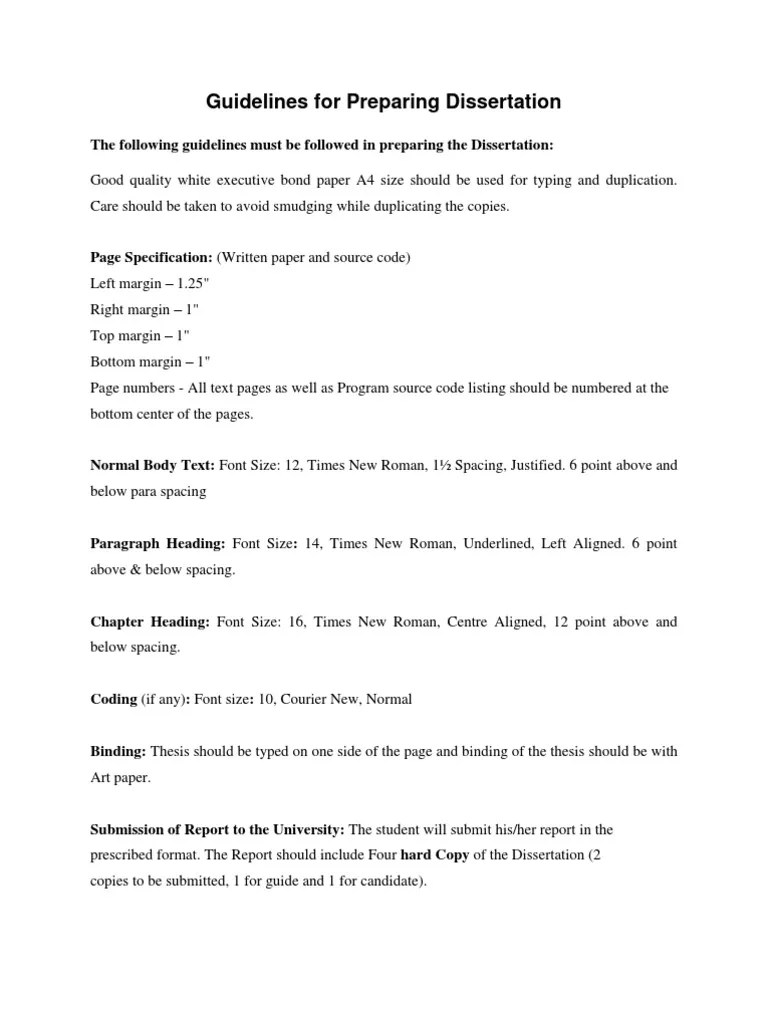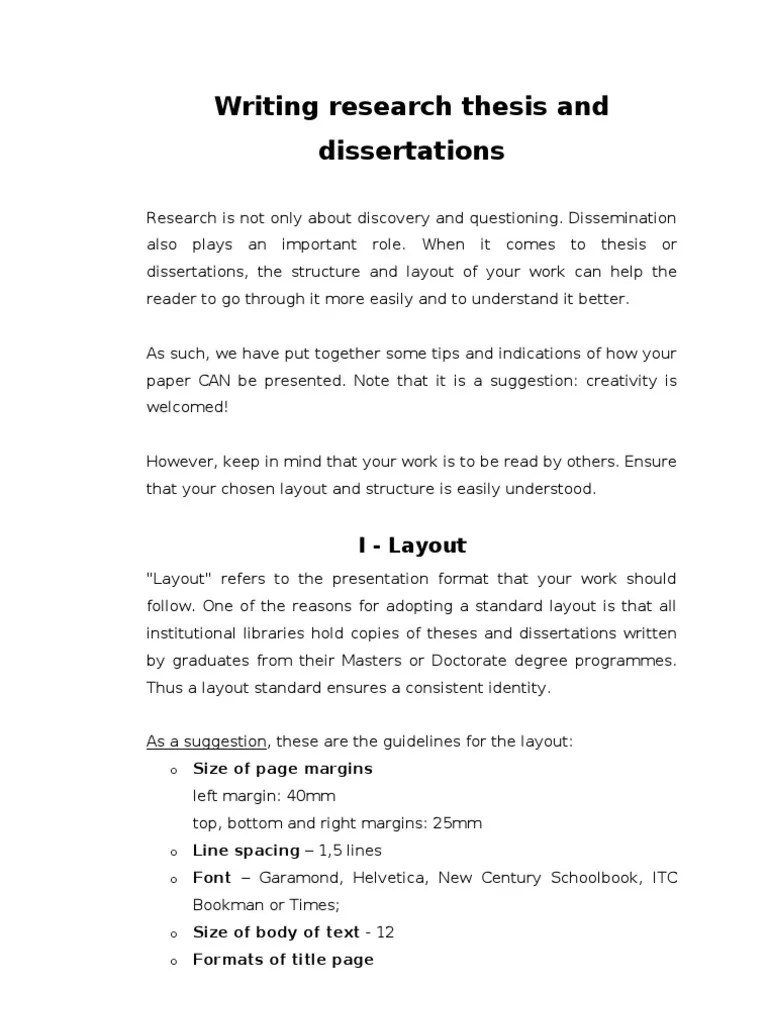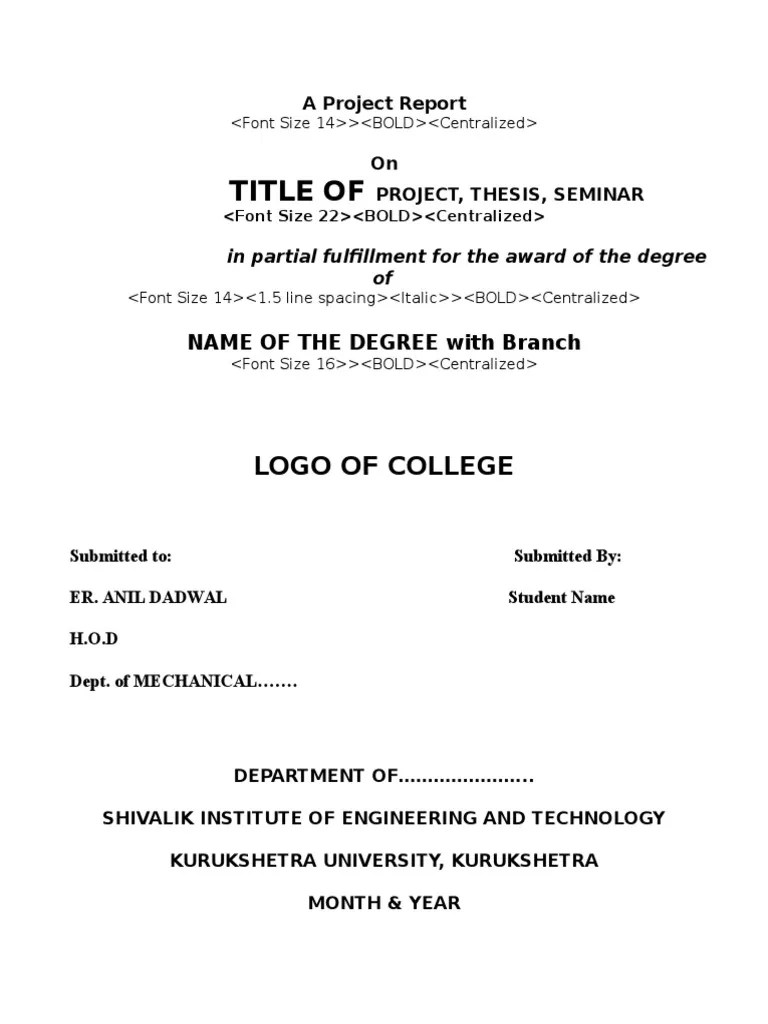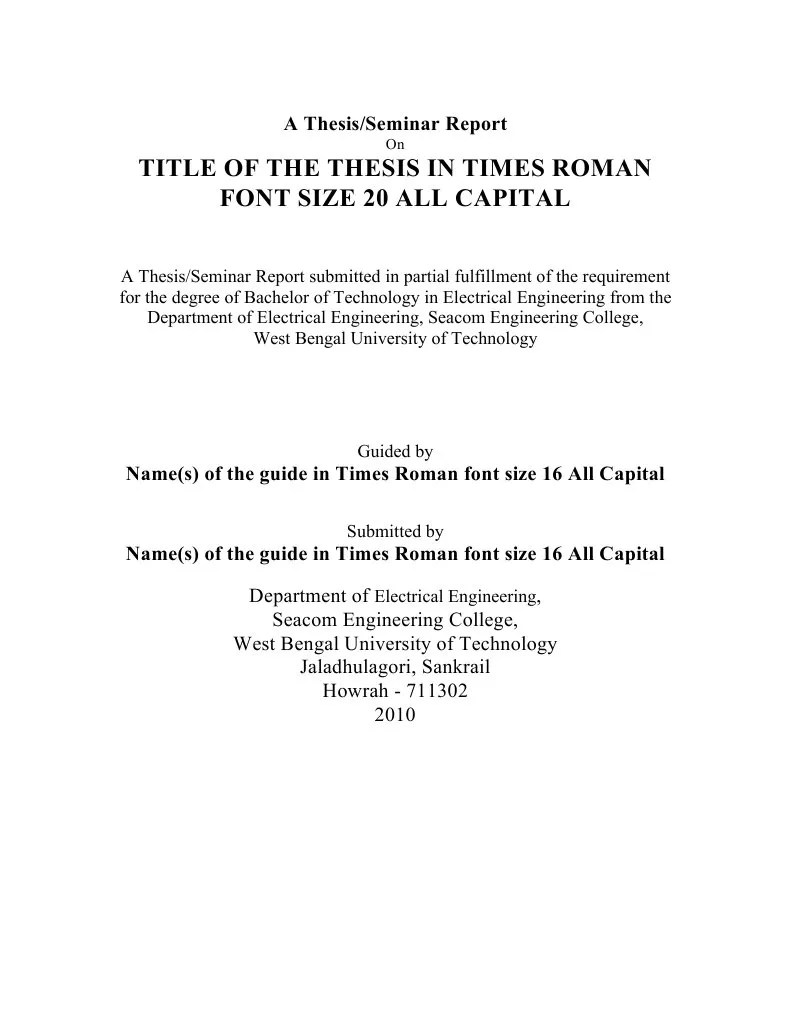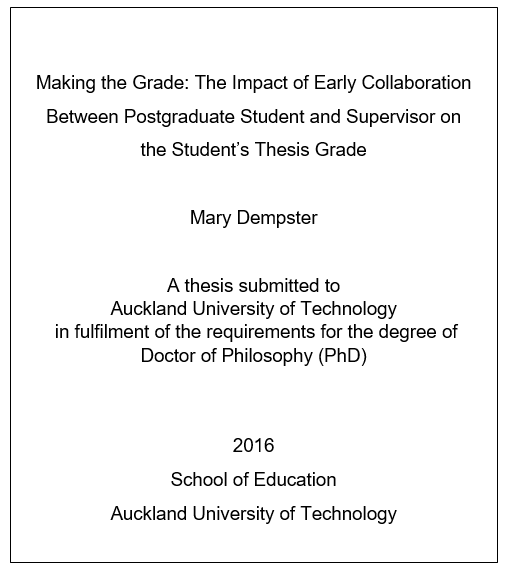
Standard Font Size For Thesis . 4cm for dissertations and theses, 2.5cm for other document types; The same font type and size should be used for the entire thesis (with possible. Fonts must be embedded in the pdf file to ensure all characters display correctly. The font size for the main text should be 11 to 12 points. Serif fonts, characterised by small lines extending from the ends of characters (e.g., times new roman), are generally considered more readable for. Font, font size, and line spacing. Use a clear and professional font.
Use a clear and professional font. Font, font size, and line spacing. Serif fonts, characterised by small lines extending from the ends of characters (e.g., times new roman), are generally considered more readable for. 4cm for dissertations and theses, 2.5cm for other document types; The same font type and size should be used for the entire thesis (with possible. The font size for the main text should be 11 to 12 points. Fonts must be embedded in the pdf file to ensure all characters display correctly.
Standard Font Size For Thesis The font size for the main text should be 11 to 12 points. 4cm for dissertations and theses, 2.5cm for other document types; The same font type and size should be used for the entire thesis (with possible. Use a clear and professional font. The font size for the main text should be 11 to 12 points. Fonts must be embedded in the pdf file to ensure all characters display correctly. Serif fonts, characterised by small lines extending from the ends of characters (e.g., times new roman), are generally considered more readable for. Font, font size, and line spacing.
Standard Font Size And Style For Documents at Jennifer Philbrook blog Standard Font Size For Thesis 4cm for dissertations and theses, 2.5cm for other document types; Fonts must be embedded in the pdf file to ensure all characters display correctly. Use a clear and professional font. Serif fonts, characterised by small lines extending from the ends of characters (e.g., times new roman), are generally considered more readable for. The same font type and size should be. Standard Font Size For Thesis.
Standard Font Size Go Classic Standard Font Size For Thesis 4cm for dissertations and theses, 2.5cm for other document types; Fonts must be embedded in the pdf file to ensure all characters display correctly. The same font type and size should be used for the entire thesis (with possible. Use a clear and professional font. The font size for the main text should be 11 to 12 points. Serif fonts,. Standard Font Size For Thesis.
Thesis Font Size Thesis Title Ideas for College Standard Font Size For Thesis Fonts must be embedded in the pdf file to ensure all characters display correctly. Font, font size, and line spacing. 4cm for dissertations and theses, 2.5cm for other document types; Serif fonts, characterised by small lines extending from the ends of characters (e.g., times new roman), are generally considered more readable for. The font size for the main text should. Standard Font Size For Thesis.
Accessible Fonts, Font Size and Line Spacing in Microsoft Word YouTube Standard Font Size For Thesis Serif fonts, characterised by small lines extending from the ends of characters (e.g., times new roman), are generally considered more readable for. Font, font size, and line spacing. The font size for the main text should be 11 to 12 points. Fonts must be embedded in the pdf file to ensure all characters display correctly. Use a clear and professional. Standard Font Size For Thesis.
Standard Font Size For Letters Letter Perfection Standard Font Size For Thesis The font size for the main text should be 11 to 12 points. Fonts must be embedded in the pdf file to ensure all characters display correctly. 4cm for dissertations and theses, 2.5cm for other document types; Font, font size, and line spacing. Serif fonts, characterised by small lines extending from the ends of characters (e.g., times new roman), are. Standard Font Size For Thesis.
Format For Font Size Standard Font Size For Thesis Font, font size, and line spacing. Fonts must be embedded in the pdf file to ensure all characters display correctly. 4cm for dissertations and theses, 2.5cm for other document types; Serif fonts, characterised by small lines extending from the ends of characters (e.g., times new roman), are generally considered more readable for. The font size for the main text should. Standard Font Size For Thesis.
Thesis Font Size Thesis Title Ideas for College Standard Font Size For Thesis 4cm for dissertations and theses, 2.5cm for other document types; Font, font size, and line spacing. Fonts must be embedded in the pdf file to ensure all characters display correctly. The font size for the main text should be 11 to 12 points. Use a clear and professional font. The same font type and size should be used for the. Standard Font Size For Thesis.
Standard Font Size For Documents Optimal Document Impact Standard Font Size For Thesis The same font type and size should be used for the entire thesis (with possible. 4cm for dissertations and theses, 2.5cm for other document types; Fonts must be embedded in the pdf file to ensure all characters display correctly. Use a clear and professional font. Serif fonts, characterised by small lines extending from the ends of characters (e.g., times new. Standard Font Size For Thesis.